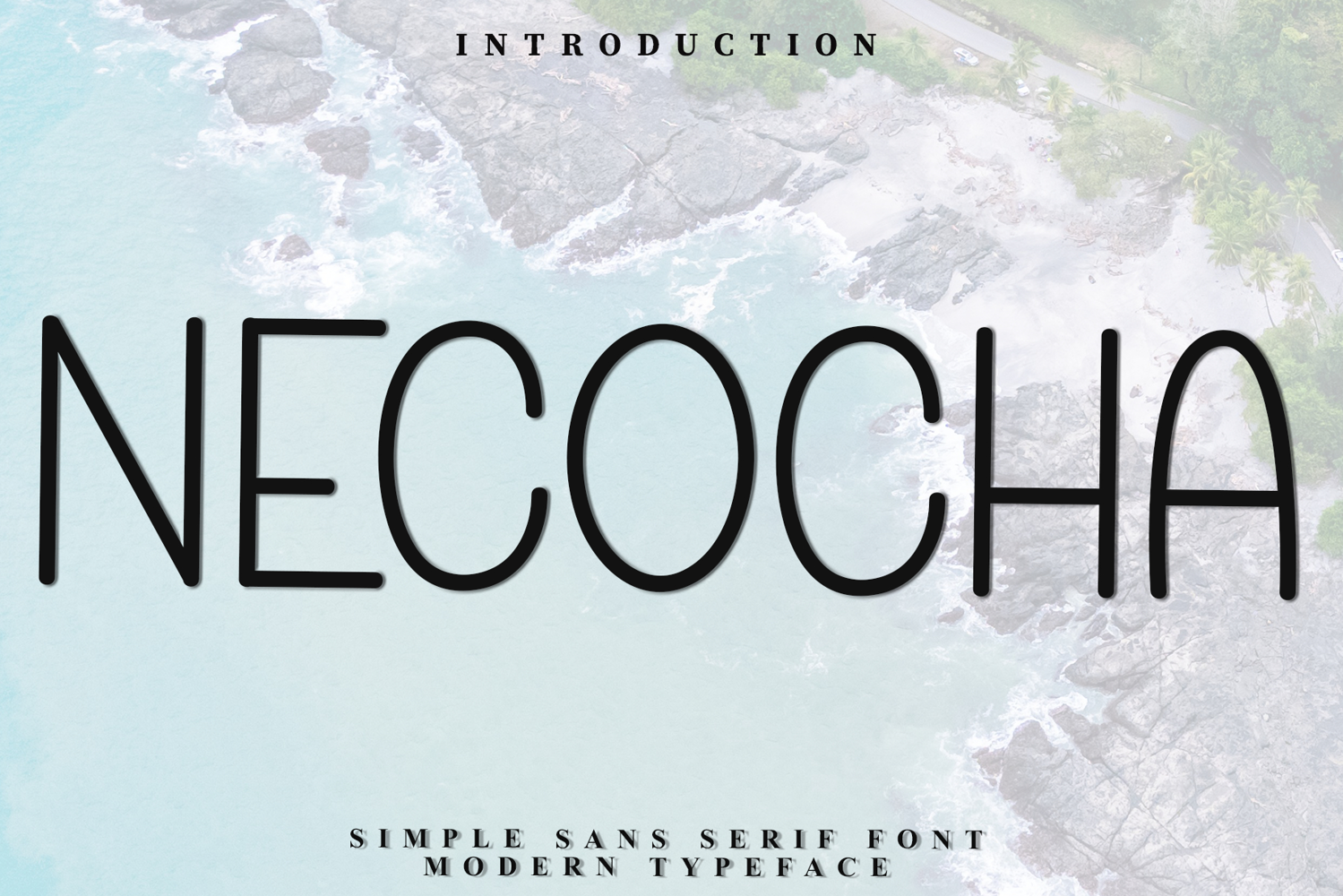
Necocha
Necocha is a beautiful and eye-catching font designed with a soft, unique touch. Its distinctive strokes give it a special character, making it meaningful and versatile for future use. With various characters, it’s perfect for design projects, crafts, and other creative works.